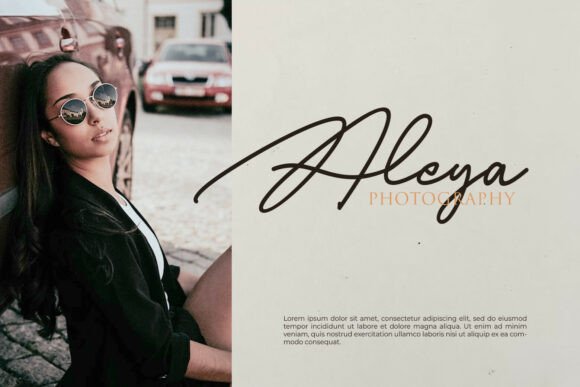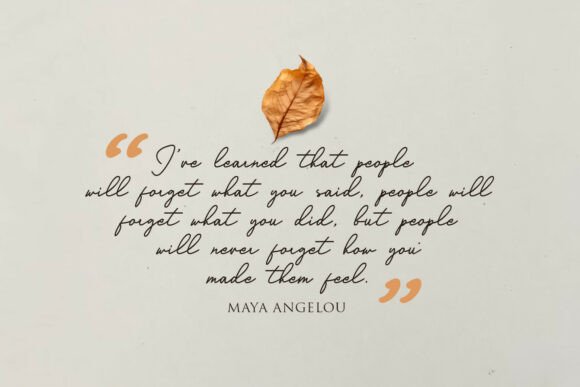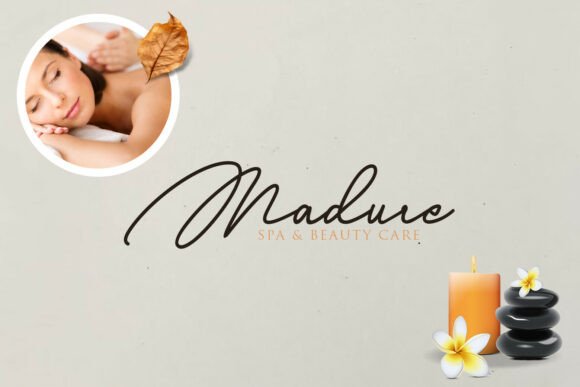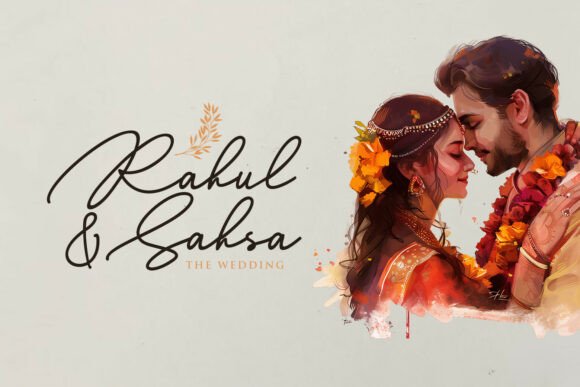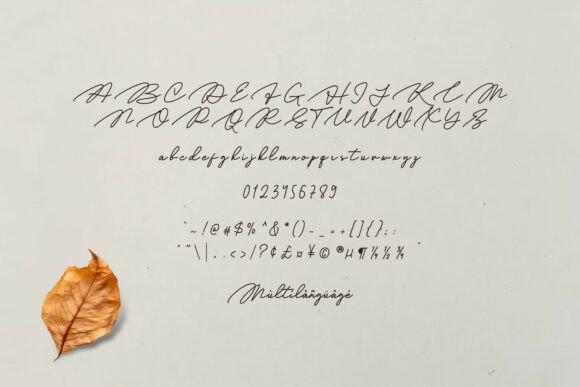
Introducing Demather Font: Elevate Your Designs with a Touch of Elegance
In the world of typography, a font can make or break a design. For those seeking a modern, yet personal touch, Demather font emerges as a game-changer. This modern handwritten script font is crafted to bring a clean, flowing style that closely mimics natural penmanship, offering a versatile and elegant solution for a wide array of creative projects.
The Essence of Demather Font
Demather is characterized by its elegant monoline strokes and slightly slanted letterforms, which together create a casual yet refined look. This balance makes it an ideal choice for designers and crafters looking to infuse their work with a sense of warmth and authenticity without compromising on sleekness or contemporary appeal.
One of the standout features of Demather font is its incredible versatility. It is designed to work beautifully across a wide range of creative projects. Whether you’re working on branding materials, blog headers, social media graphics, quotes, invitations, product packaging, or minimalist logos, Demather brings a level of sophistication and elegance that can elevate any design.
For designers, Demather offers a fresh alternative to more traditional fonts. Its unique blend of modernity and personal touch can help your designs stand out in a crowded digital landscape. Crafters, on the other hand, will appreciate the font’s ability to add a handmade, bespoke feel to their work, whether it’s for product labels, packaging, or promotional materials.
Key Features of Demather Font
- Modern Handwritten Script: Demather boasts a clean, flowing style reminiscent of natural handwriting, making it perfect for projects that require a personal touch.
- Elegant Monoline Strokes: The font’s monoline strokes offer a sleek and contemporary look, suitable for a wide range of applications.
- Slightly Slanted Letterforms: This feature gives Demather a dynamic and slightly casual feel, ideal for creating a friendly and approachable brand image.
- High Legibility: Despite its elegant and flowing nature, Demather is designed with legibility in mind, ensuring that your message is conveyed clearly and effectively.
- Versatile and Adaptable: From digital platforms to print materials, Demather adapts seamlessly, making it a valuable addition to any designer’s toolkit.
Applications of Demather Font
The applications of Demather font are vast and varied. Here are a few ideas to get you started:
- Branding: Use Demather to create a unique and memorable brand identity that stands out.
- Blog Headers: Add a touch of elegance to your blog with custom headers that reflect your personal or brand style.
- Social Media Graphics: Elevate your social media presence with eye-catching graphics that utilize Demather’s flowing script.
- Quotes and Inspirational Content: The elegant nature of Demather makes it perfect for showcasing quotes and inspirational messages.
- Invitations: Whether digital or print, Demather can add a level of sophistication to any invitation.
- Product Packaging: Stand out on store shelves with packaging that features custom typography in Demather.
- Minimalist Logos: For brands looking for a simple yet impactful logo, Demather offers a clean and modern solution.
Demather font is a powerful tool for anyone looking to add a touch of elegance and personality to their designs. Its modern handwritten script, combined with its versatility and legibility, makes it an excellent choice for a wide range of creative projects. Whether you’re a designer, crafter, or simply someone looking to elevate your brand or personal style, Demather is sure to inspire and enhance your work.